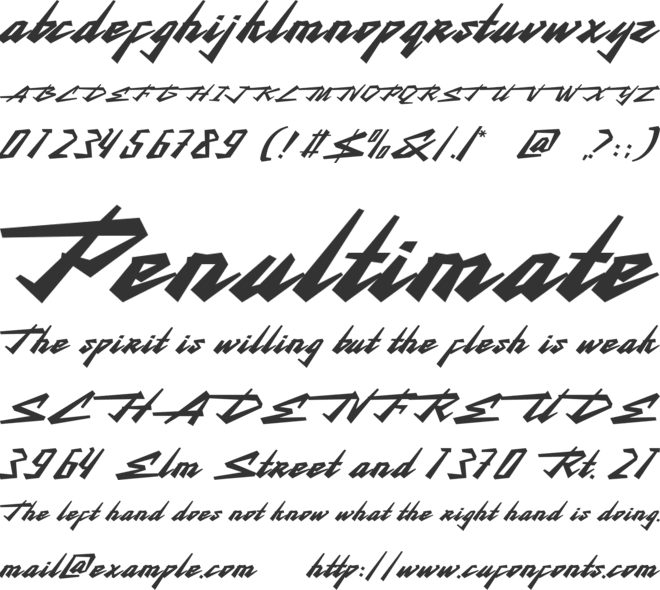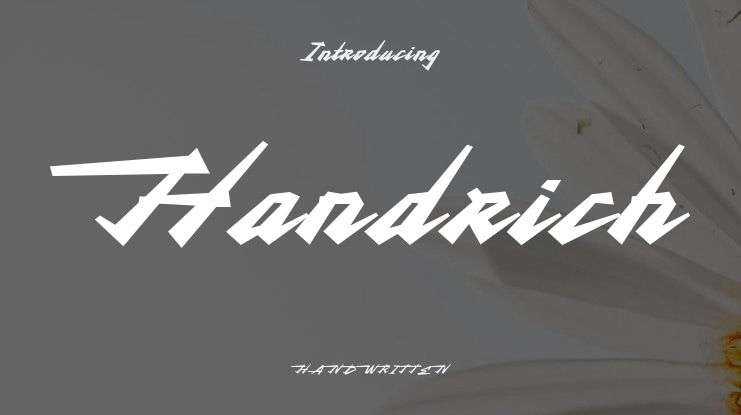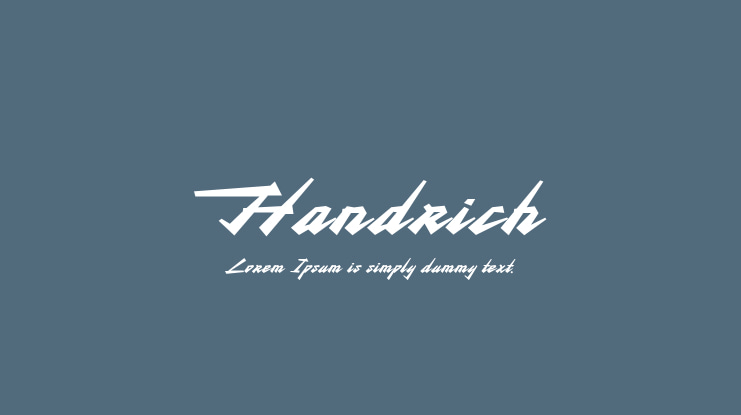
Handrich Font
Introducing the Handrich Typeface, a dynamic and expressive script font that embodies the essence of speed, strength, and precision. Handrich is designed for those who seek a typeface that exudes a bold and energetic character, perfect for making a statement.